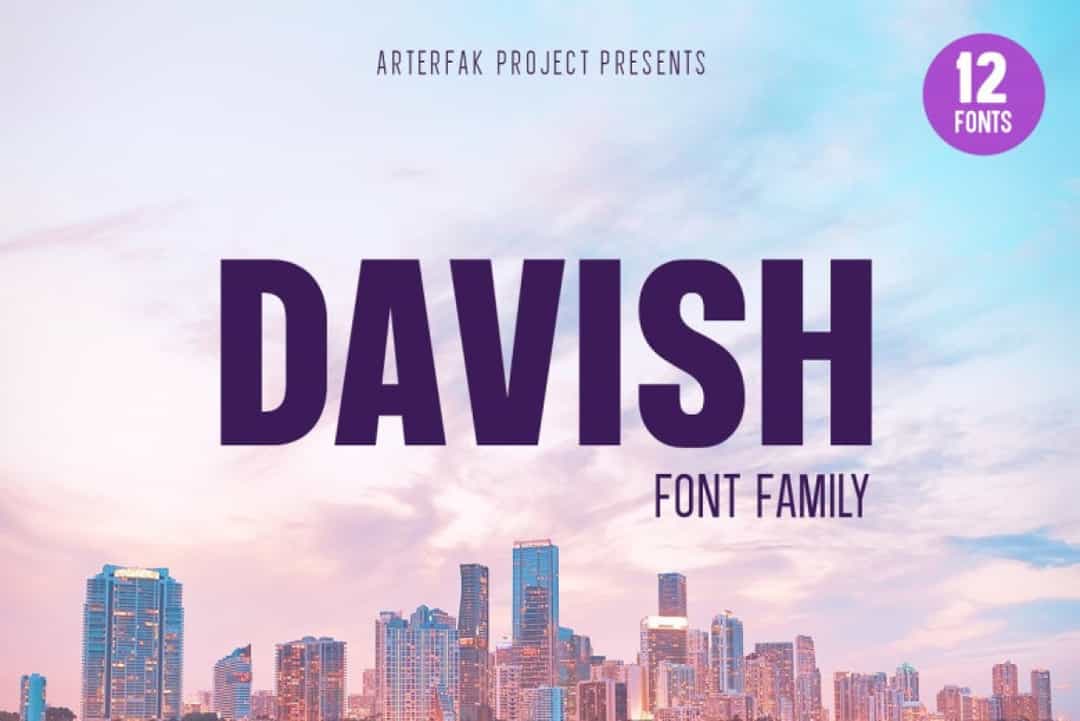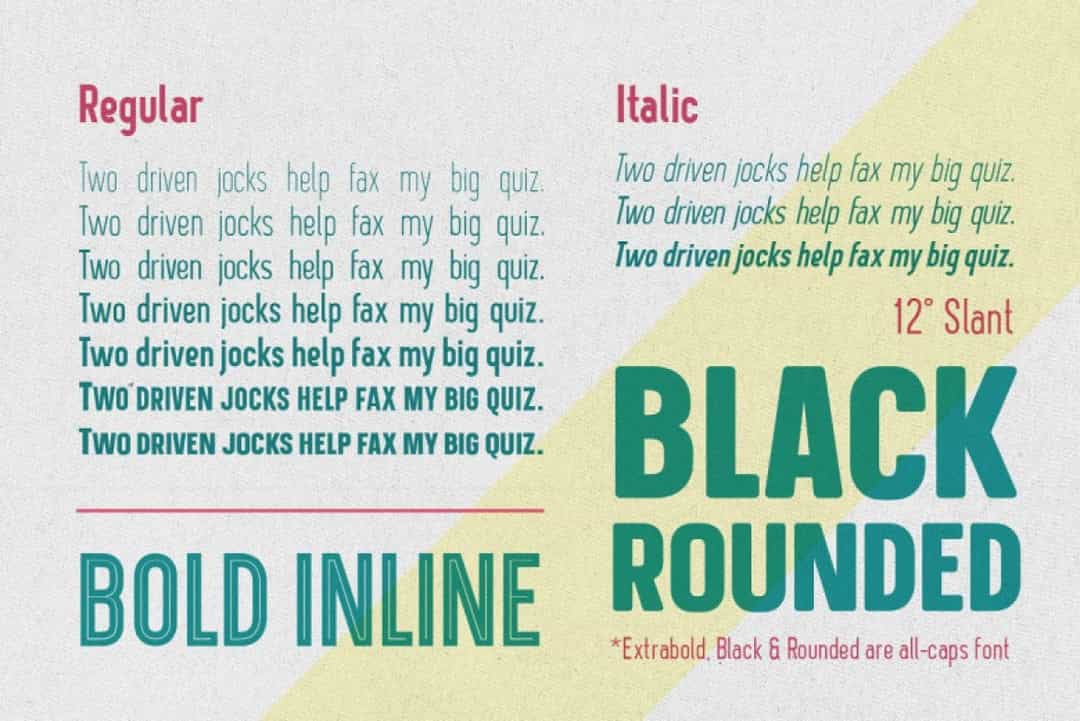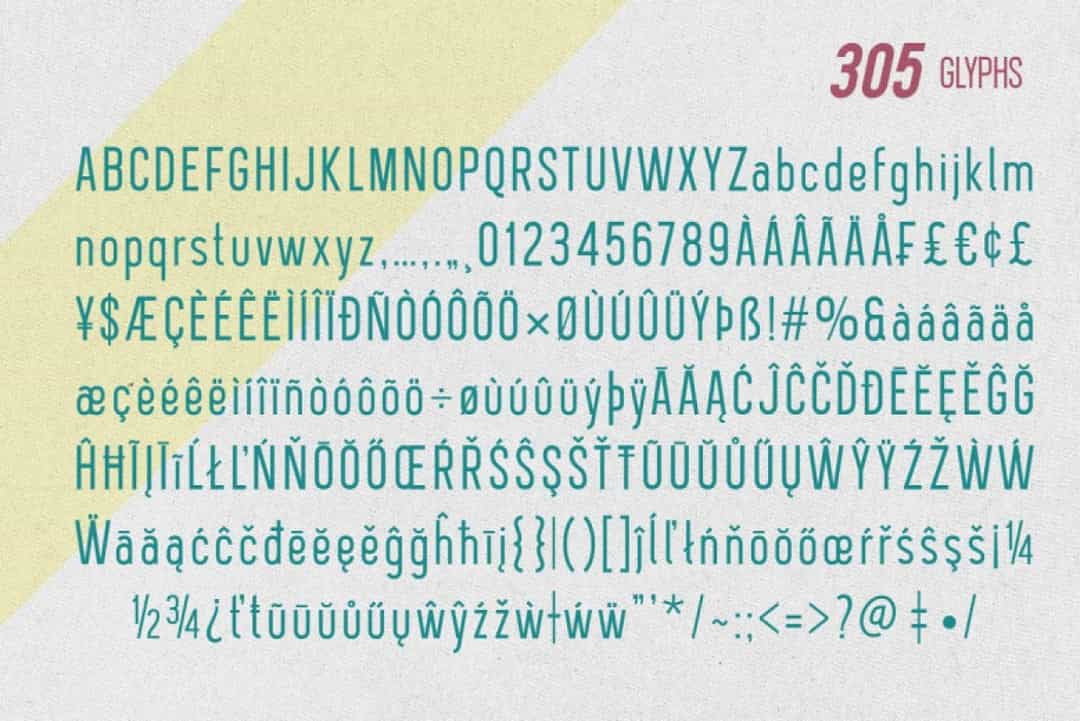
Davish Sans Serif Font Family is an elegant monoline and minimalist font family, carefully designed based on condense height. There are seven weights and five styles. Thin Medium, Light Medium and Bold styles are often suggested for editorial designs such as head lines, subhead lines, body copy footnote layout of documents etc. You may use Bold styles too as another choice to give yourself more options.